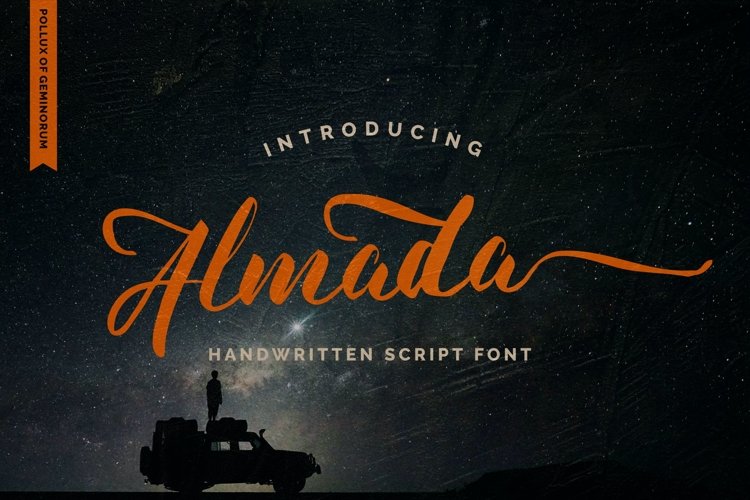
Almada - Handwritten Typeface
Almada
Almada is an elegant and flowing handwritten font. It is PUA encoded which means you can access all of the glyphs and swashes with ease! It features a varying baseline, smooth lines, gorgeous glyphs and stunning alternates. It maintains its classy calligraphic influences while feeling contemporary and fresh. There is a set of alternate characters with beginning and ending in the typeface download, ensuring every word you make seems more appealing. Without a doubt, Almada is ideal for completing various design projects, such as wedding invitations, social media banners, posters, packaging design, etc. Fall in love with this font and bring your projects to the highest levels!